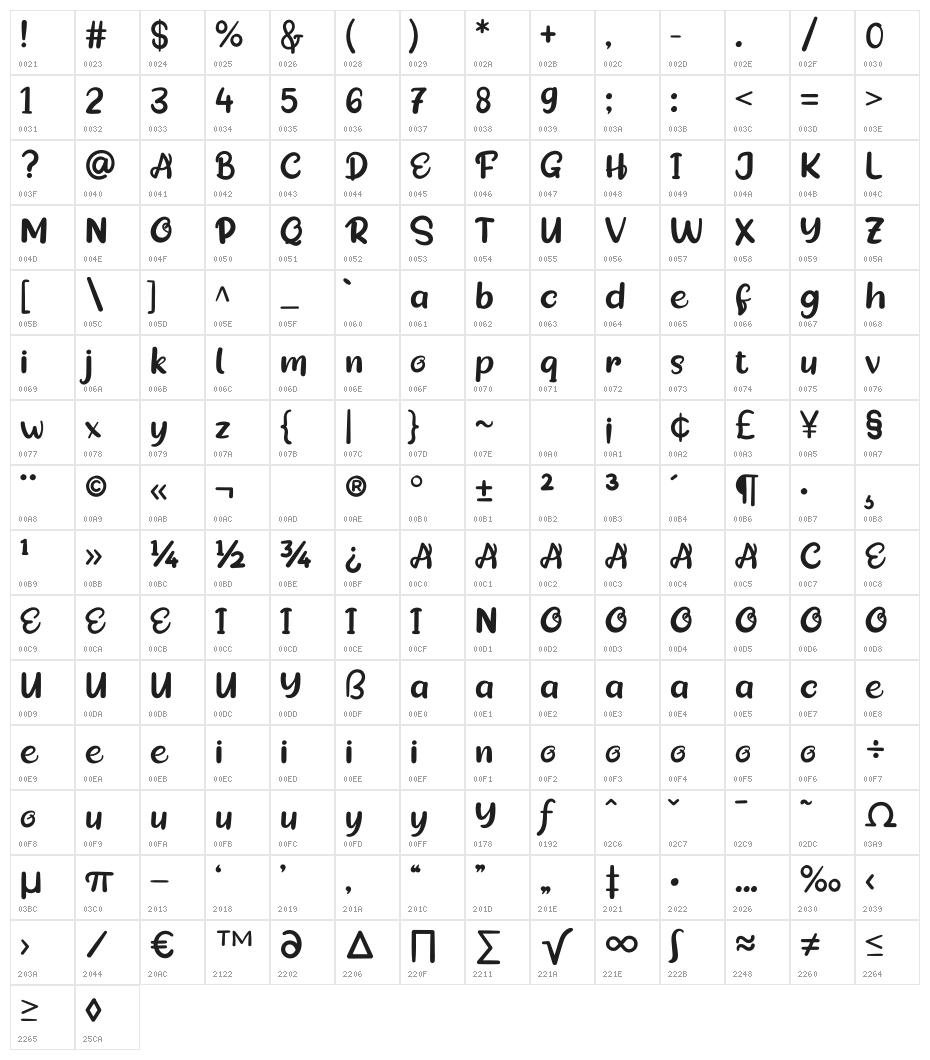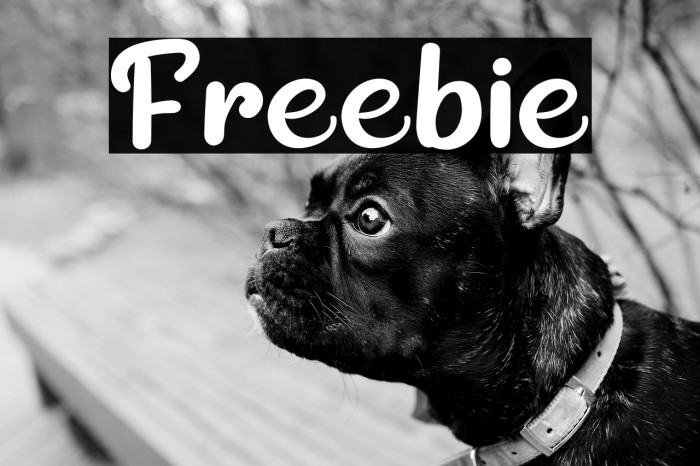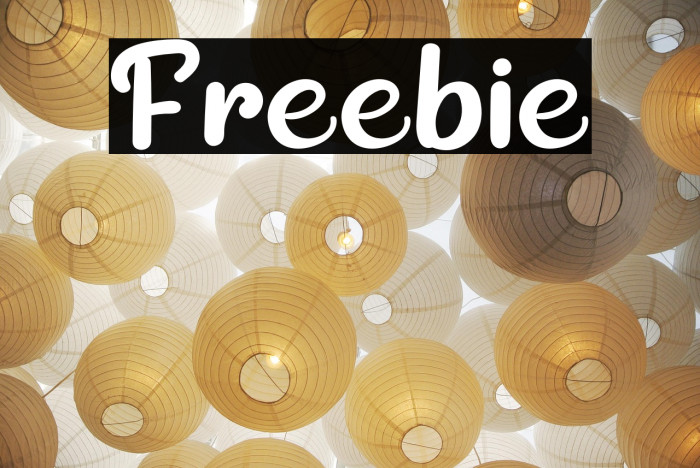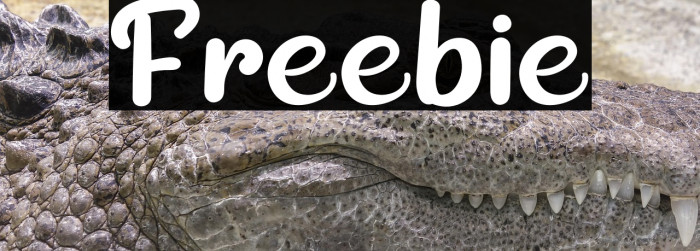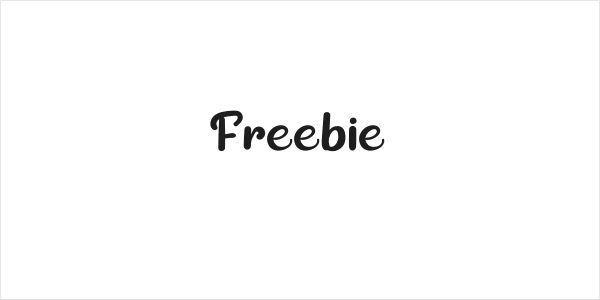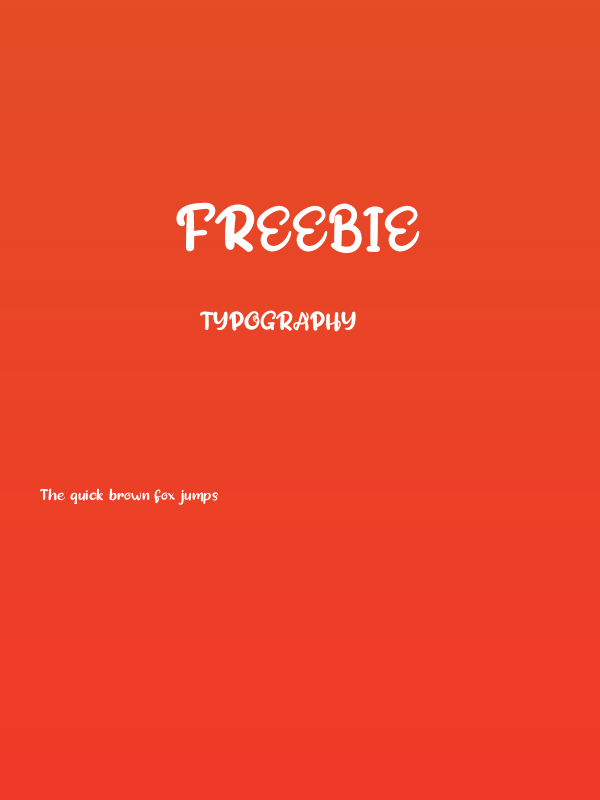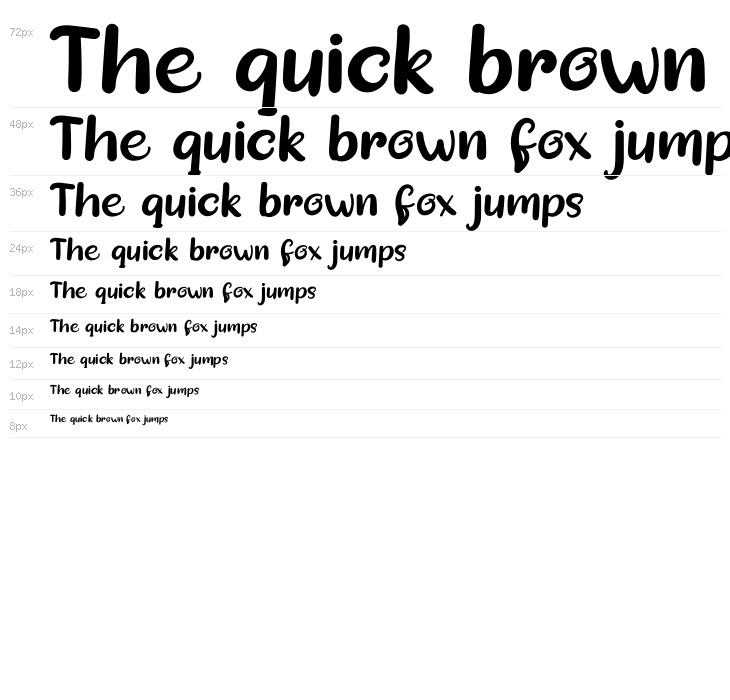
Freebie Font
Freebie Description
This playful and bold font features a handwritten style with a lively and energetic appearance. The characters are rounded and slightly irregular, giving it a friendly and approachable feel. The uppercase letters are bold and prominent, while the lowercase letters maintain a consistent flow with a touch of whimsy. Numbers and special characters are designed to match the overall playful aesthetic, making this font suitable for creative and informal projects. The font's unique style is perfect for capturing attention and conveying a sense of fun and creativity.
| Overall Style | Playful |
| Proposed Projects | Ideal for children's books, playful branding, greeting cards, and creative posters. |